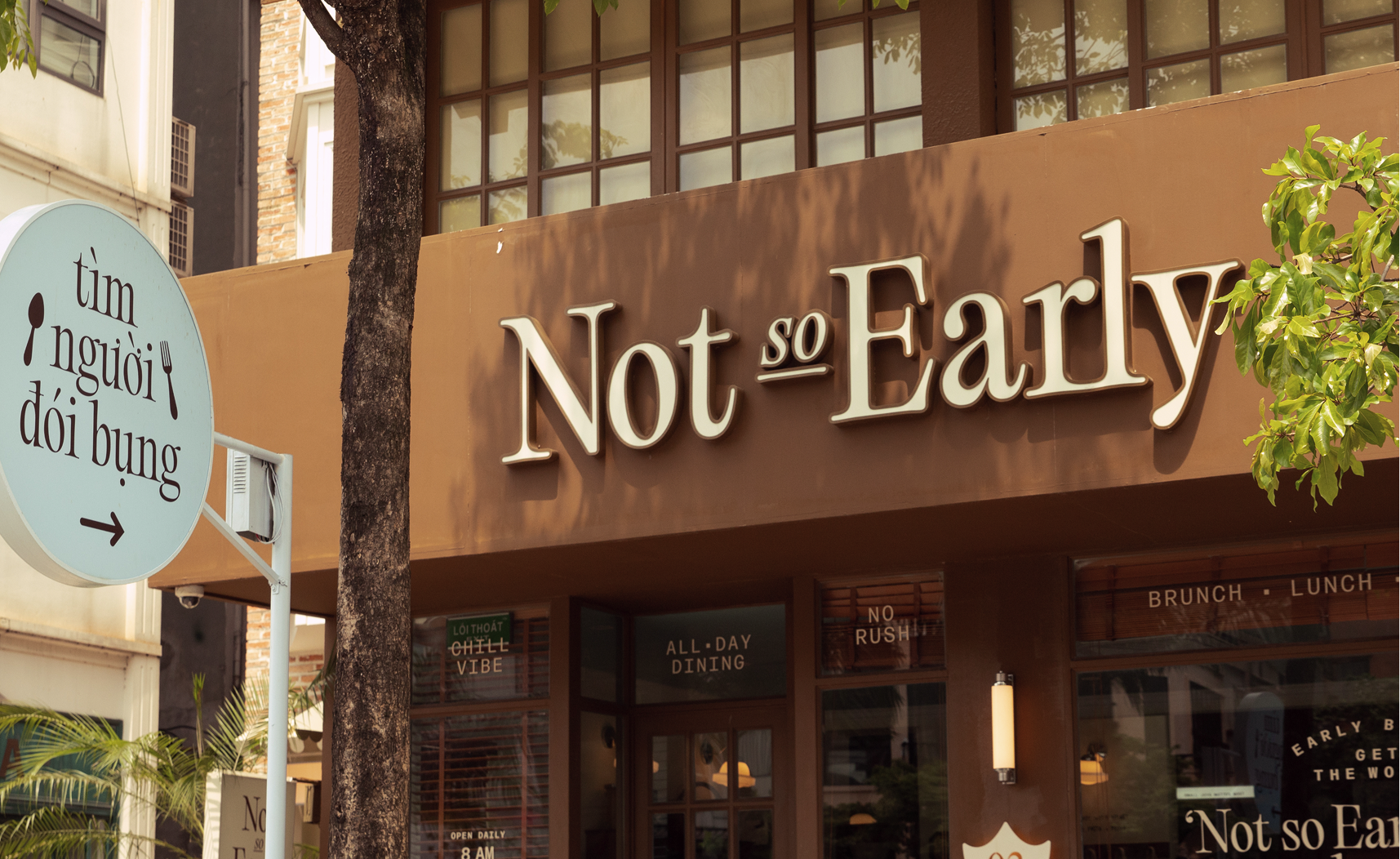
Not So Early is a brunch and dine concept serving comforting pasta, fusion artisanal pizzas, and all-day brunch dishes in a space designed for slow mornings and easy afternoons in Hanoi.
Inspired by the warmth of a summer cottage, Not so Early combines thoughtfully crafted food with a welcoming atmosphere. Natural light, soft textures, and carefully curated interior details come together to create a place that feels playful, charming, and effortlessly inviting.
Begin a little later. We went beyond creating another brunch destination. For Not So Early, we looked at the saying "The early bird gets the worm" and asked a different question: what if there is nothing wrong with taking your time? In a culture that often celebrates speed, productivity, and waking up early, we saw an opportunity to create a brand for those who em brace a slower rhythm. People who enjoy unhurried mornings, meaningful conversations, and the simple luxury of not rushing.
Like a Sunday Newspaper, best enjoyed slowly. Drawing inspiration from the ritual of a slow morning, lingering over a late breakfast with a newspaper in hand. The visual identity embraces the nostalgic charm of editorial design from the 1990s. The logotype takes cues from vintage newspaper mastheads, classified advertisements, and print headlines, where typography was expressive, characterful, and full of personality.
Meet Toulouse. A food critic. A brunch enthusiast, perhaps the world's sleepiest goose. With a refined palate and a firm belief that no meal is worth waking up too early for, Toulouse serves as the character that embodies everything NsE stands for. Curious, charming, and never in a hurry, Toulouse reminds us that life's greatest pleasures are often the simplest ones: good food, good company, and maybe one more hour of sleep.
Different way to look at things. We believe meaningful brands are not created by following trends. They are created by finding a perspective worth sharing. From strategy and storytelling to visual identity and experience design, every element was built around this shared attitude. A reminder that there is no single right way to start the day. Sometimes, being not so early is exactly right on time.